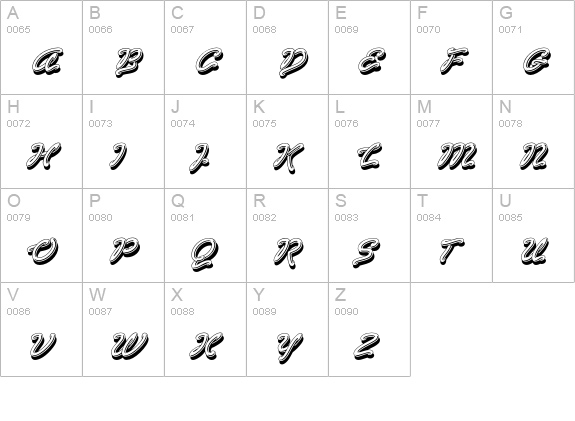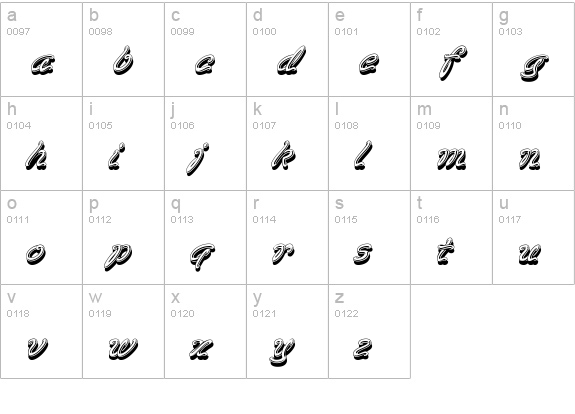
Vegas Std Font Details
Vegas Std font is a stunning display typeface that exudes a sense of elegance and sophistication. With its clean lines and bold strokes, this font is perfect for creating eye-catching headlines, logos, or branding materials. The smooth curves and sharp angles of each letter give Vegas Std font a contemporary and modern feel, making it a versatile choice for both digital and print designs. One of the best things about Vegas Std font is that it is available for free. Yes, you read that right - this incredible font can be downloaded at no cost at FontsMarket.com. This means that you can add a touch of professional flair to your projects without breaking the bank. Whether you're a graphic designer working on a client project or a student creating a presentation, Vegas Std font will elevate your work to the next level. Its extensive character set includes uppercase and lowercase letters, numerals, punctuation marks, and special symbols, allowing you to express your creativity with ease. The high-quality design and attention to detail in Vegas Std font make it truly stand out. Its legibility ensures that your message will be clearly communicated, while its unique style adds a touch of personality to your designs. From advertisements and posters to website headers and social media graphics, Vegas Std font is the perfect choice to make your content pop. So why wait? Head over to FontsMarket.com and download Vegas Std font for free today. Enhance your designs, captivate your audience, and make a lasting impression with this remarkable typeface.